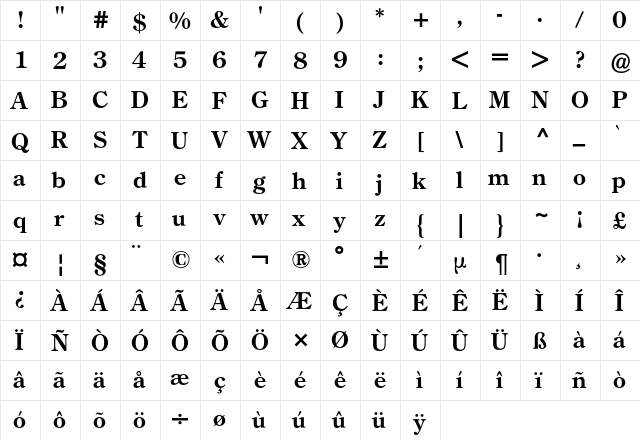
Century ATF Old Style BQ Regular
Design Context for Century ATF Old Style BQ Typeface
Century ATF Old Style BQ offers clean, dependable letterforms without strong stylistic allegiance, making it a practical choice for designers who need flexibility.
Pro Tip: Pair Century ATF Old Style BQ with a font of contrasting weight or personality to build a more expressive typographic hierarchy.